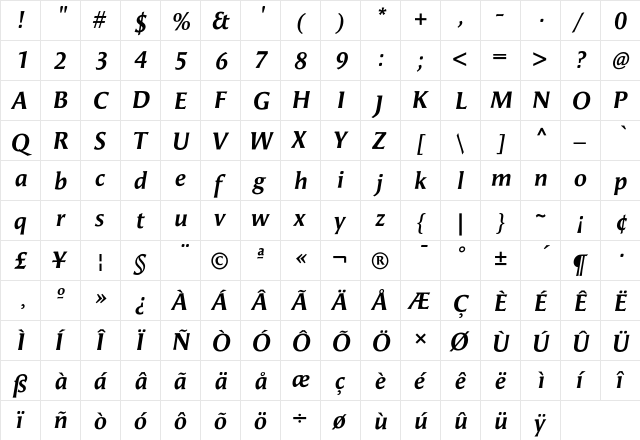
Angie BoldItalic Font Preview
Design Context for Angie Typeface
Angie takes a measured approach to typography — its balanced proportions and neutral character make it a reliable workhorse for both digital and print work. Its italic angle brings a sense of urgency and motion to the letterforms. The heavy weight commands attention and anchors typographic hierarchies.
Pro Tip: Try Angie for annotation and caption copy alongside an upright companion — the contrast in angle creates a dynamic but ordered typographic system.